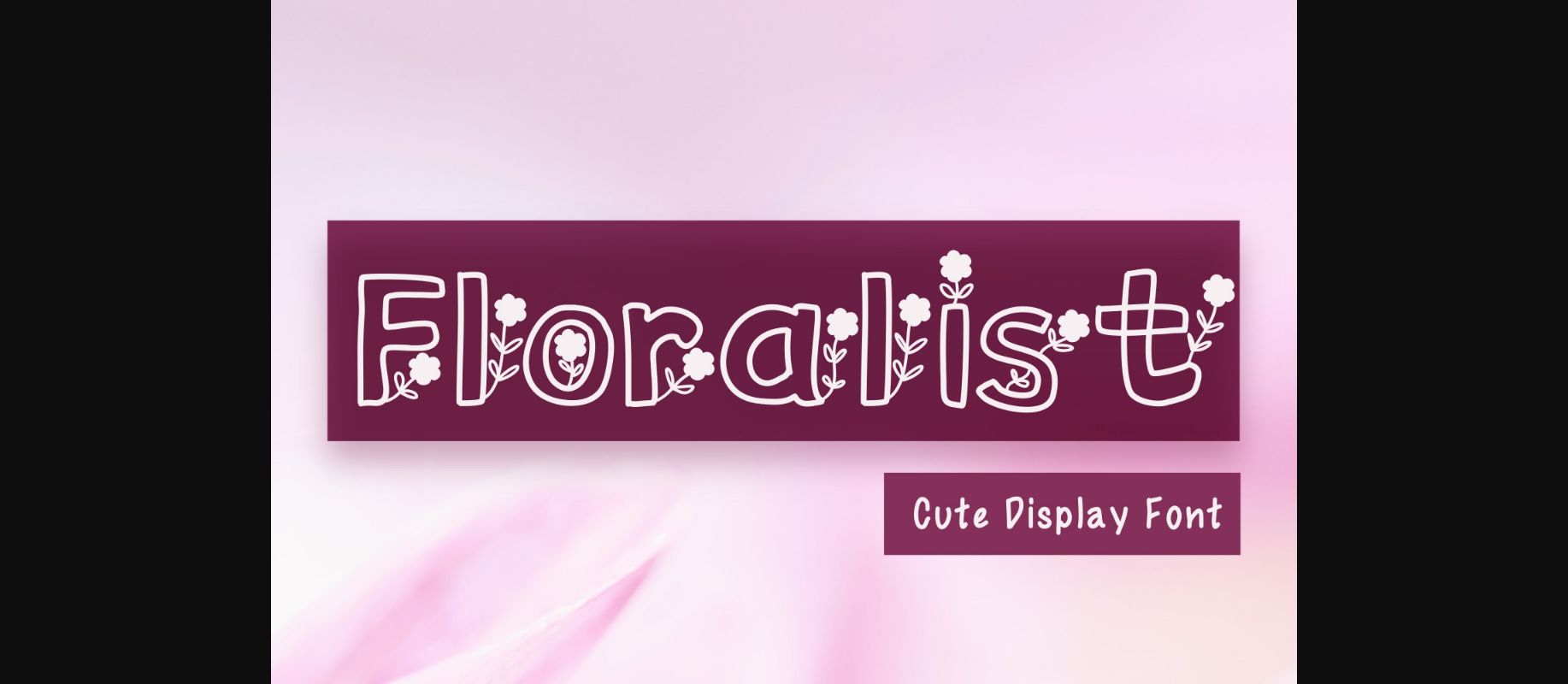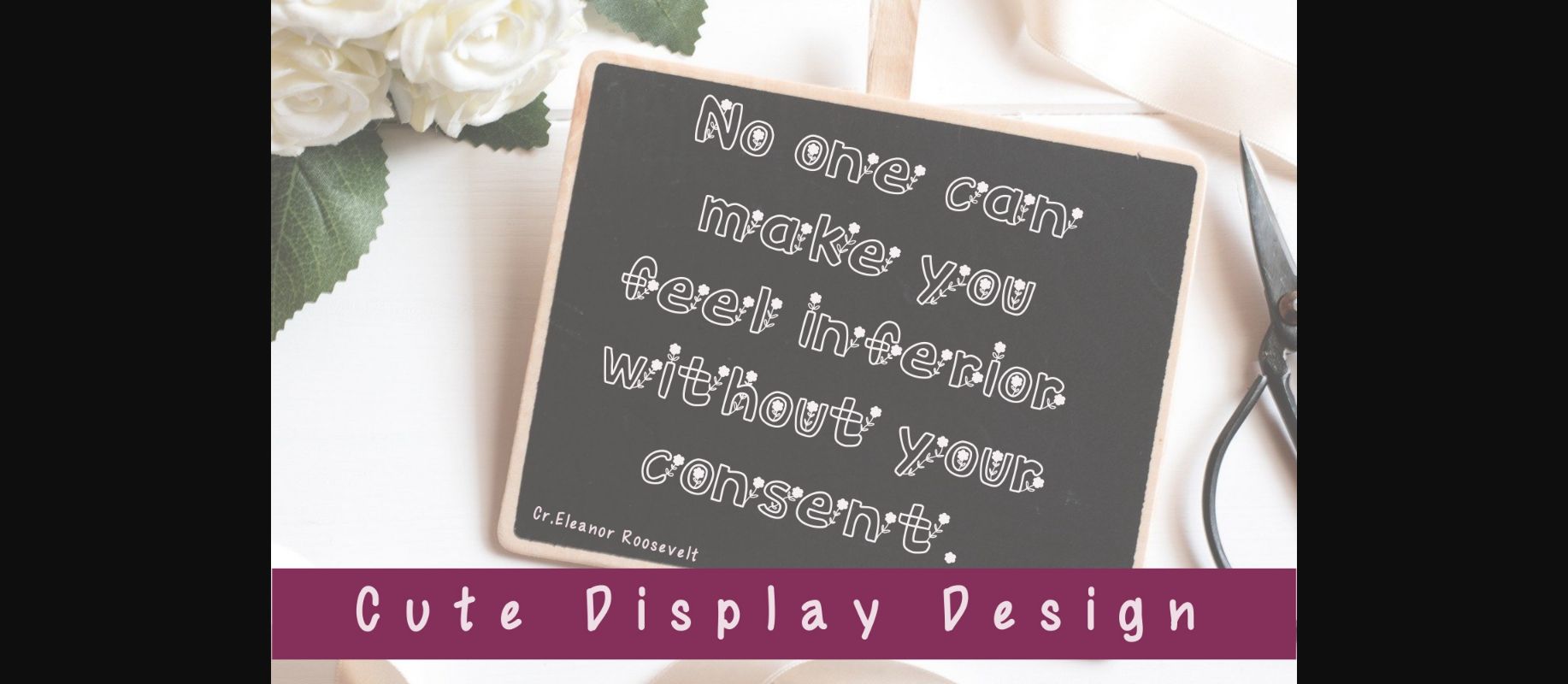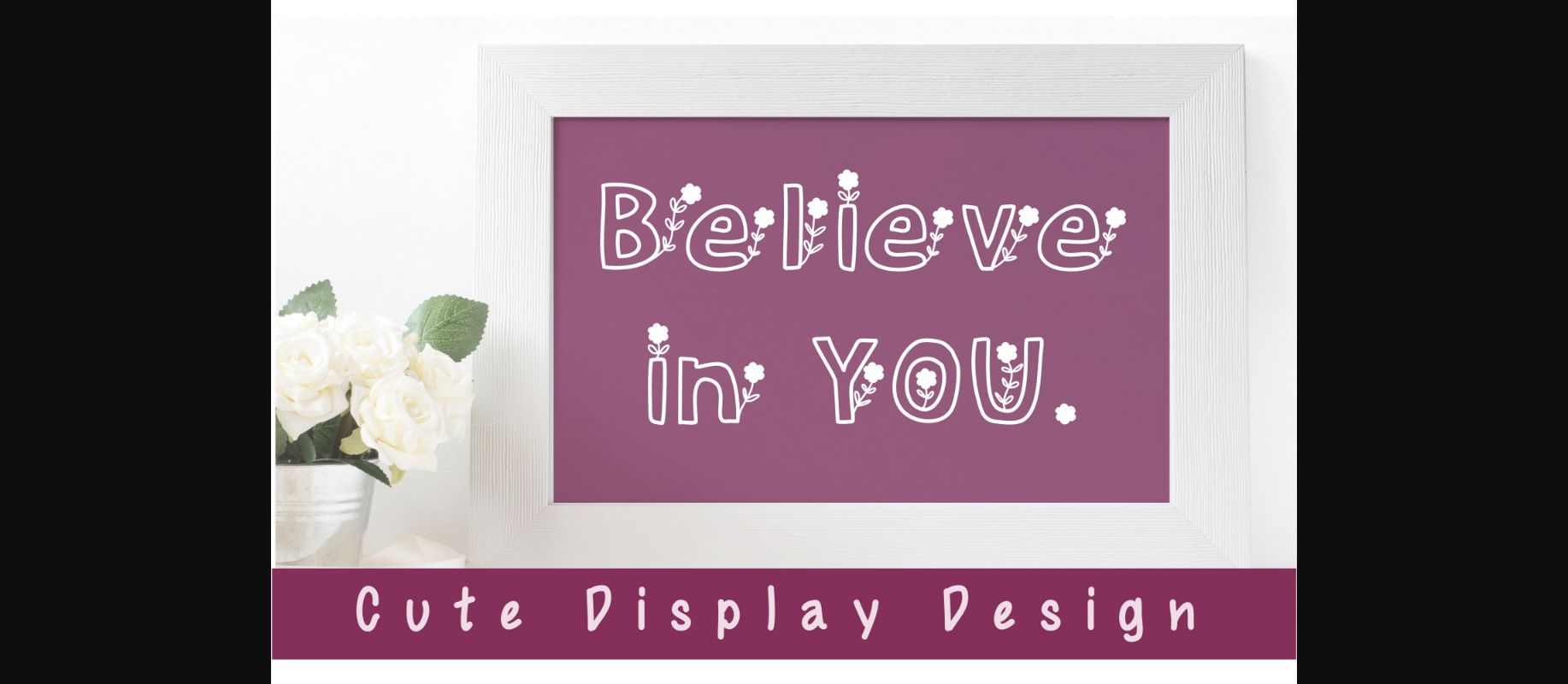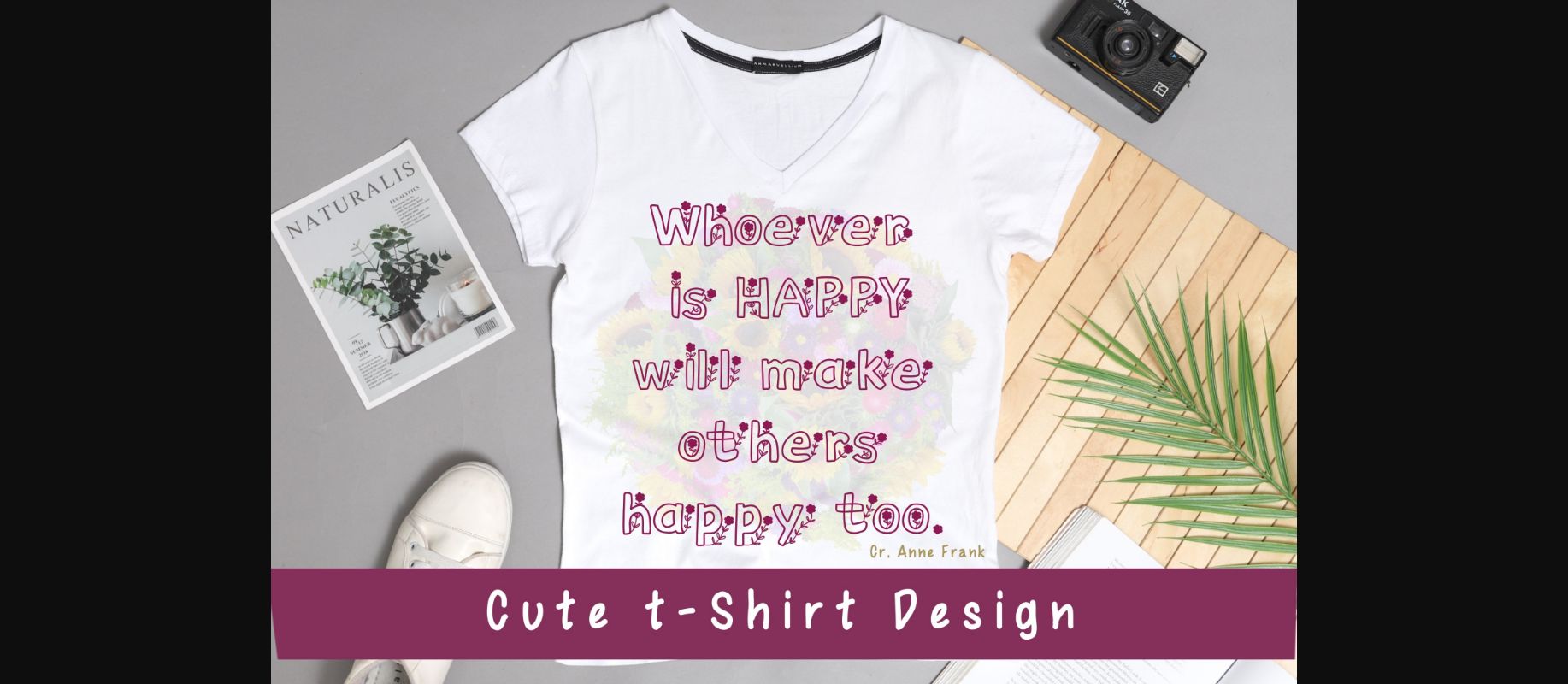
About Floralist Font
Floralist is a beautiful and dainty decorative font, featuring frail little flowers. Featuring characters that dance along the baseline, this font will add a luxury spark to any design project that you wish to create!